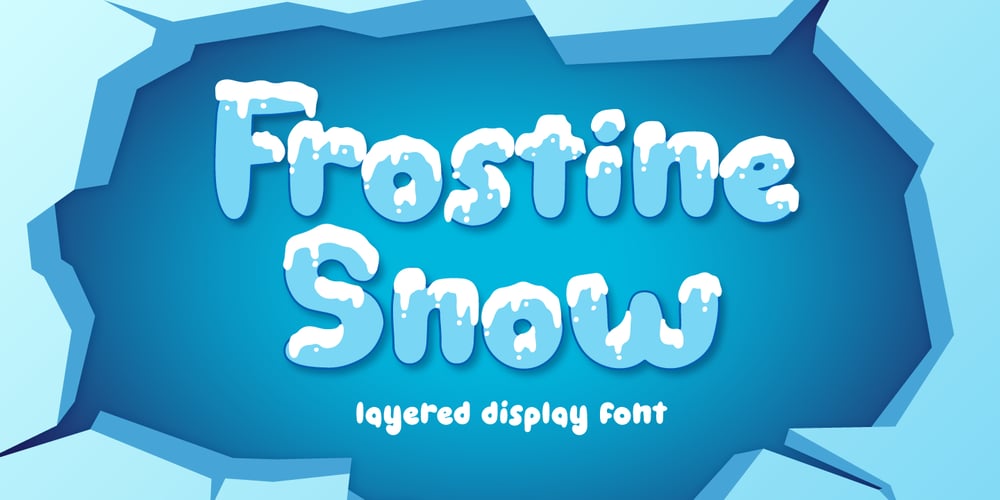
Frostine Snow
Frostine Snow font
Frostine Snow Font Family was designed by Fadli Ramadhan Iskandar and published by Attype Studio. Frostine Snow contains 2 styles and family package options. Introducing Frostine Snow – Inspired by winter snow, Frostine Snow is christmas font.perfect for making merry christmas images for card & super easy to use for 3D effect using Frostine Snow font, make combination of this font to create amazing design!Two style Font: Handwritten & DisplayFrostine Snow is perfect for children product, branding, logo, invitation, stationery, product packaging, merchandise, monogram,blog design, game titles, cute style design, Book/Cover Title and more.Features :- Frostine Snow.otf- Frostine Snow Display.otf- Multilingual Support —Hope you enjoy with our font!Attype Studio